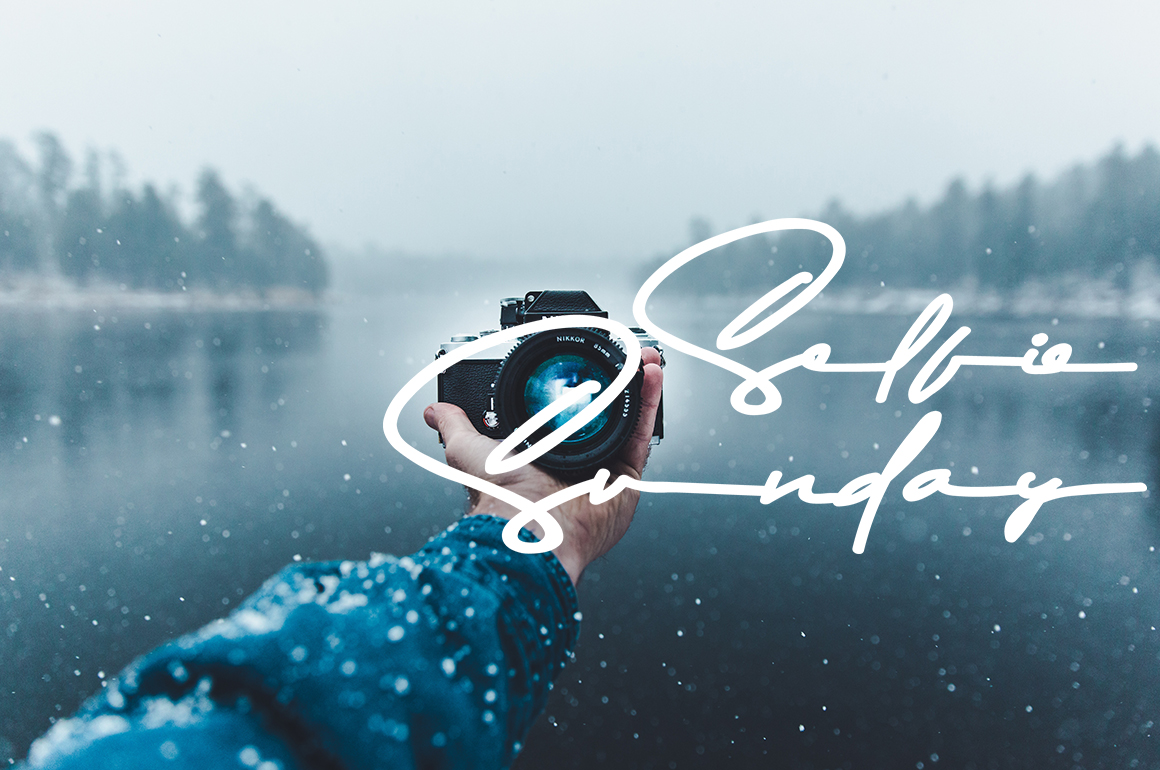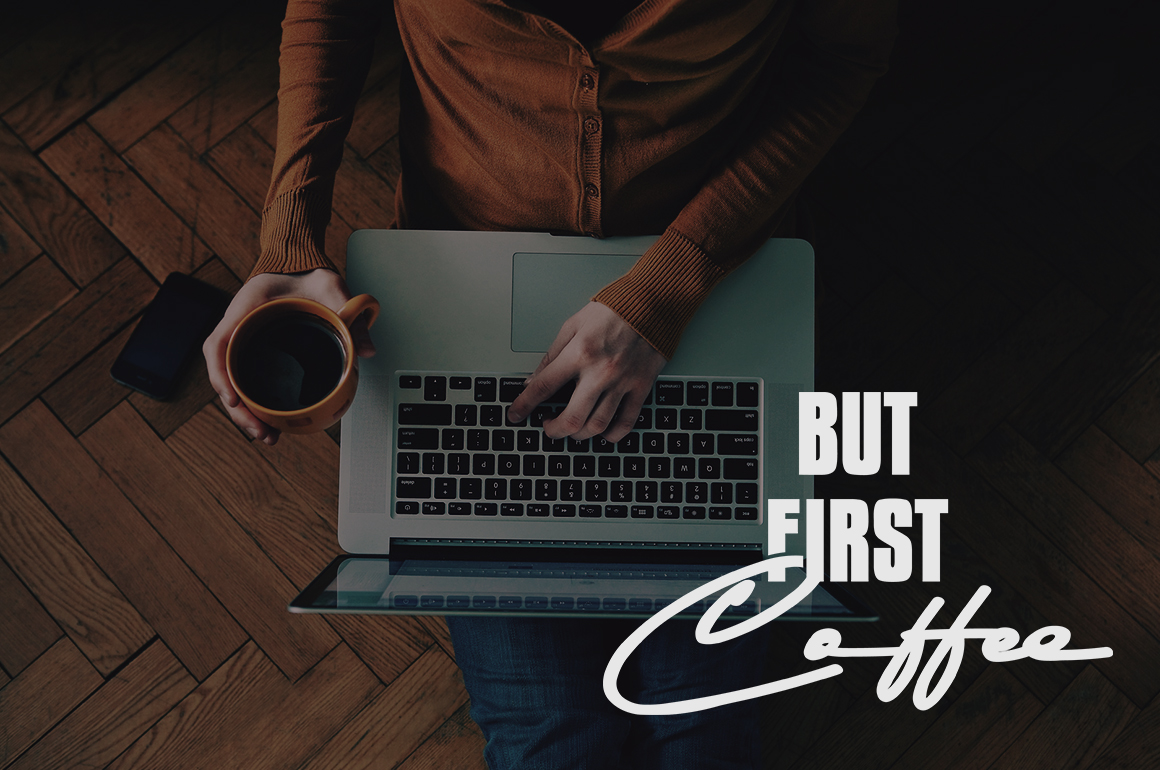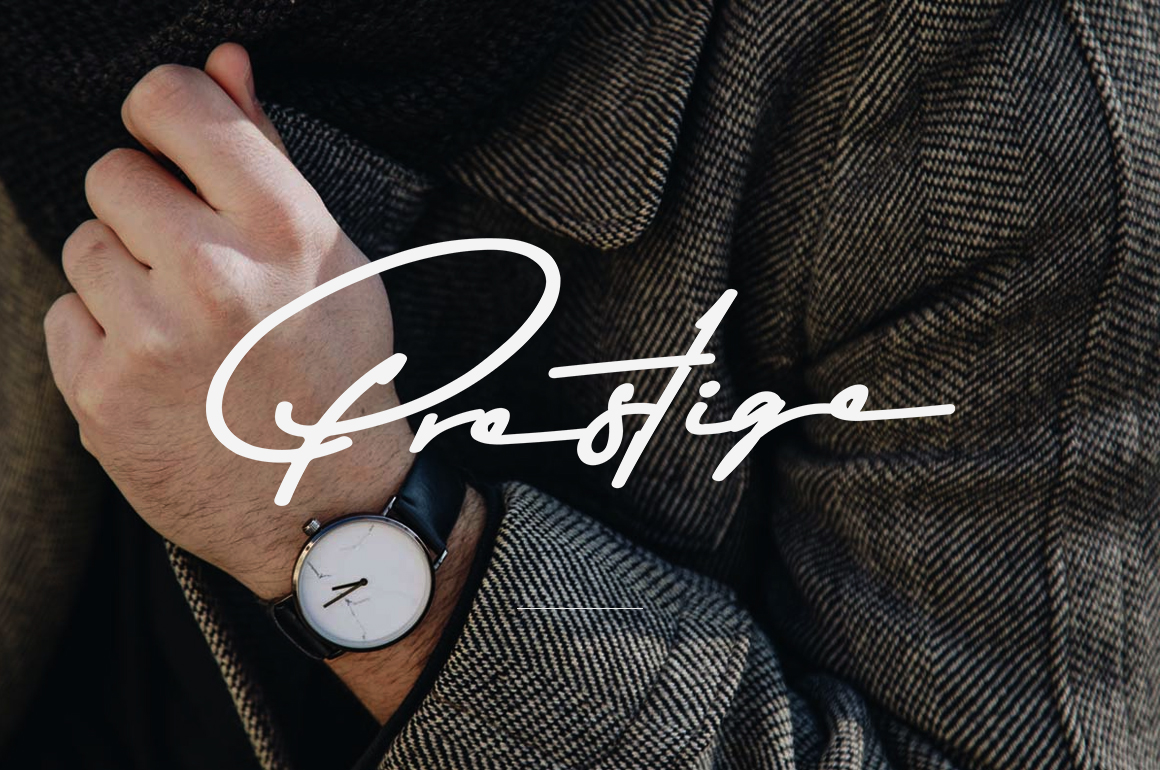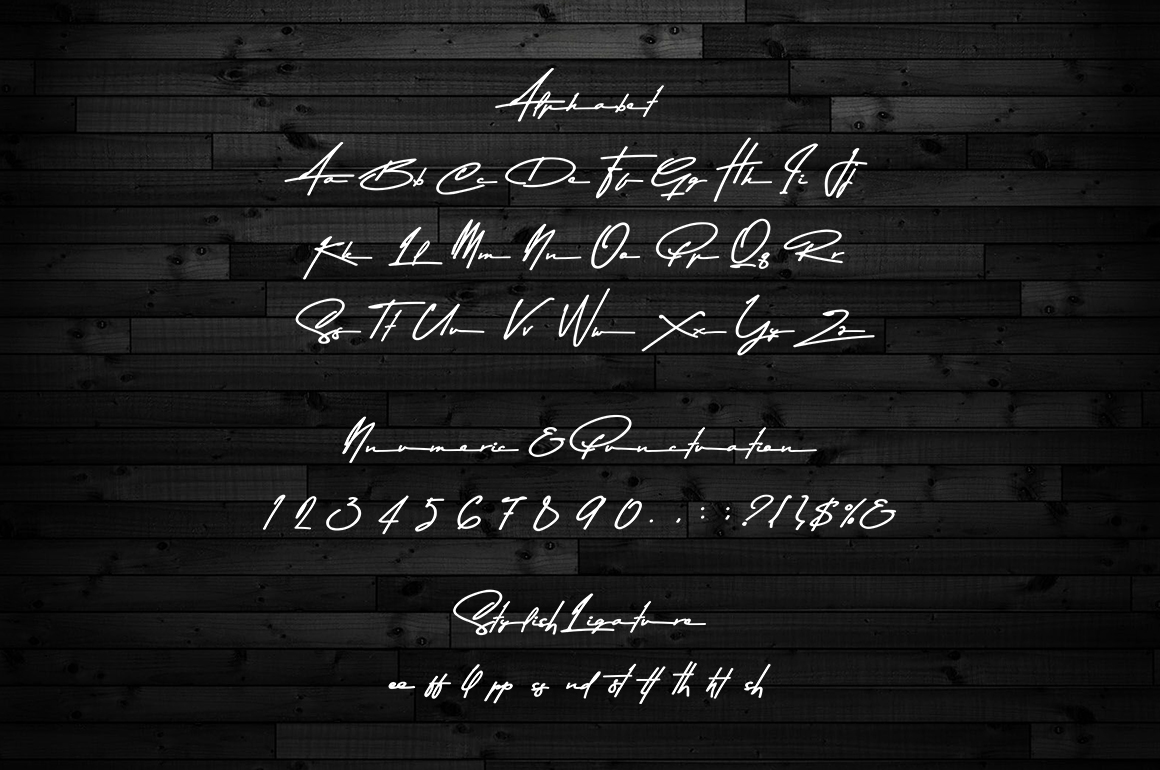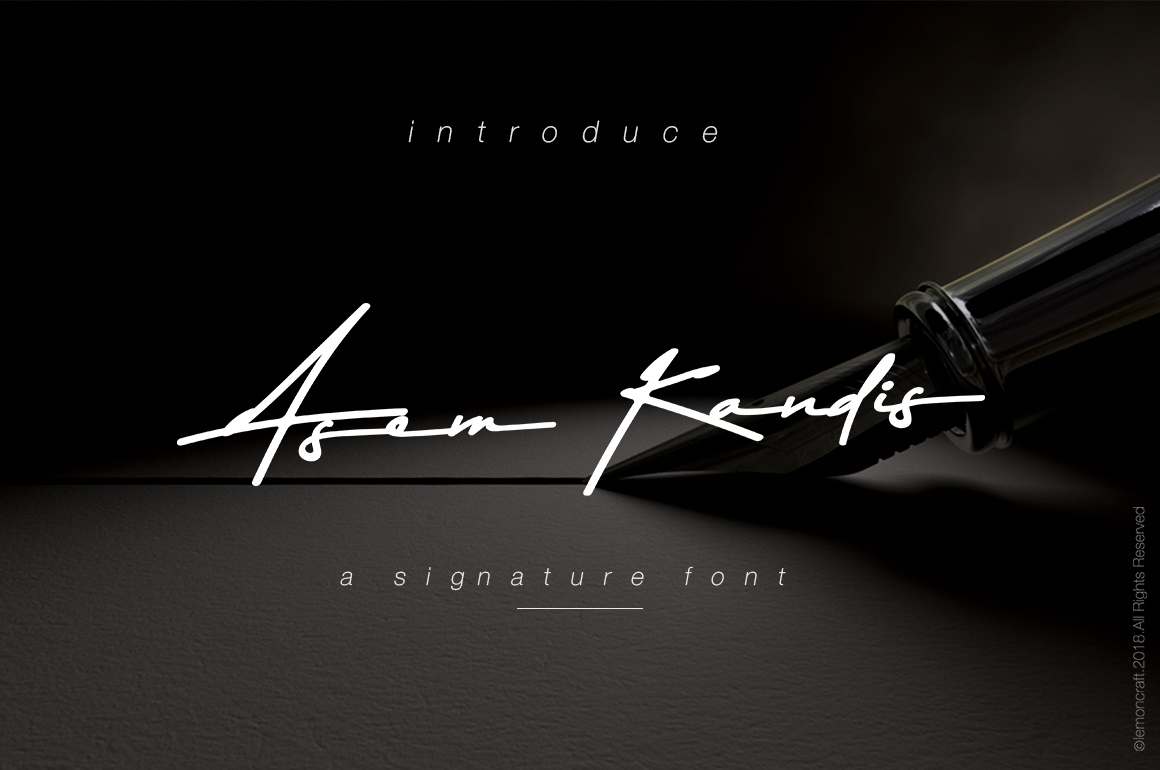
Asem Kandis – A Signature FontScript Font
Introduce my font, Asem Kandis – A Signature Font!
Asem Kandis font is an elegant modern Script-handwritten font, which supports a collection of Latin characters with stylish and visually impressive …
This font contains a complete set of lowercase and uppercase letters, punctuation marks, numbers, and also a stylish set of ligature.
Asem Kandis Font Script is a high-quality handwritten font that can embed any project with Prestigious vibrations. Signatures, Wedding Invitations, Elegant Logos, Pottery, and other impressive projects.